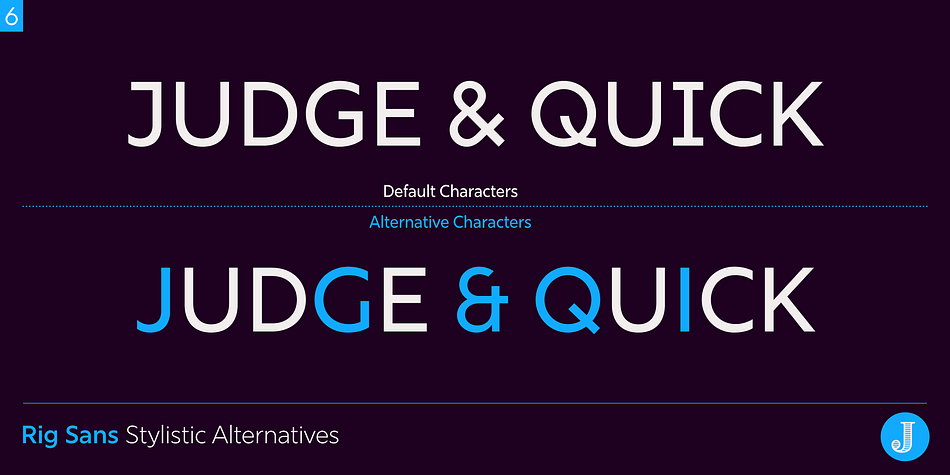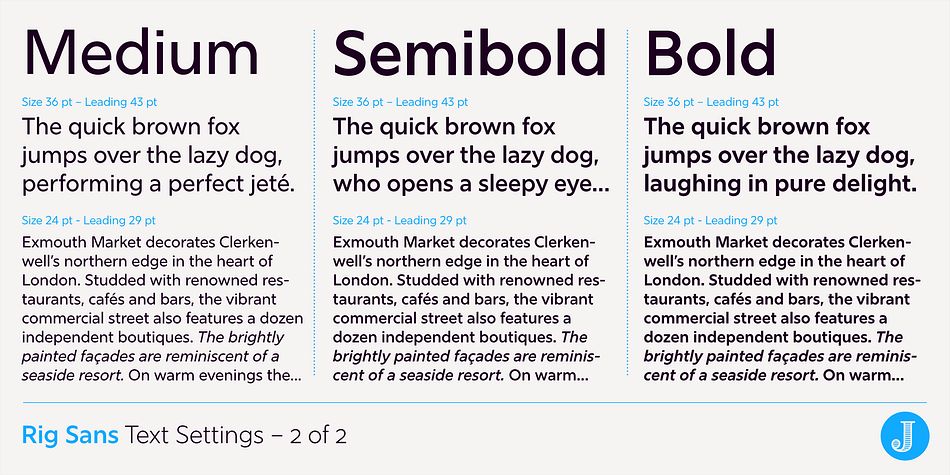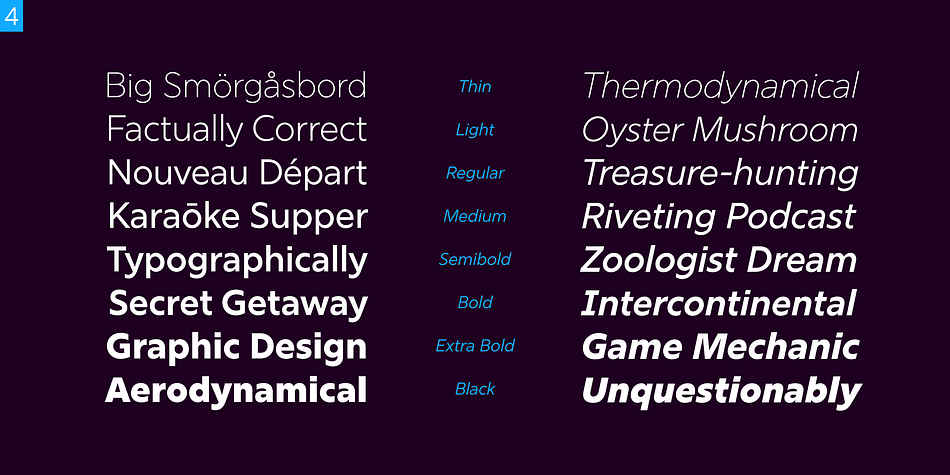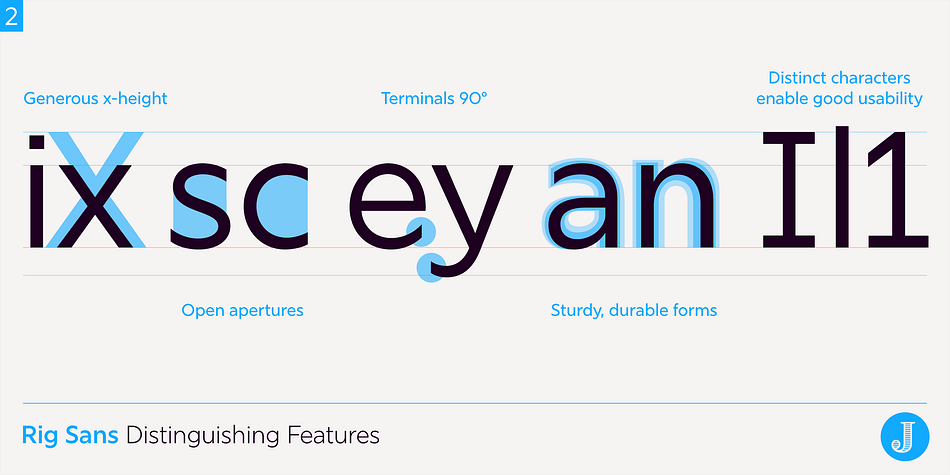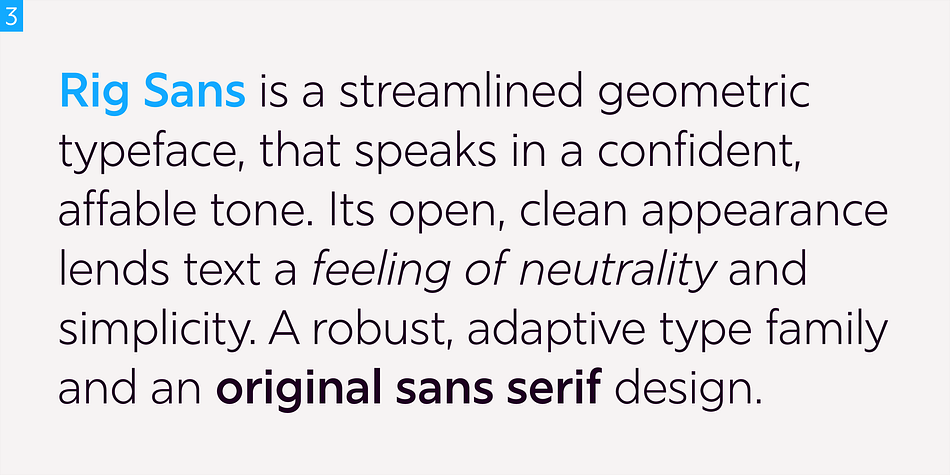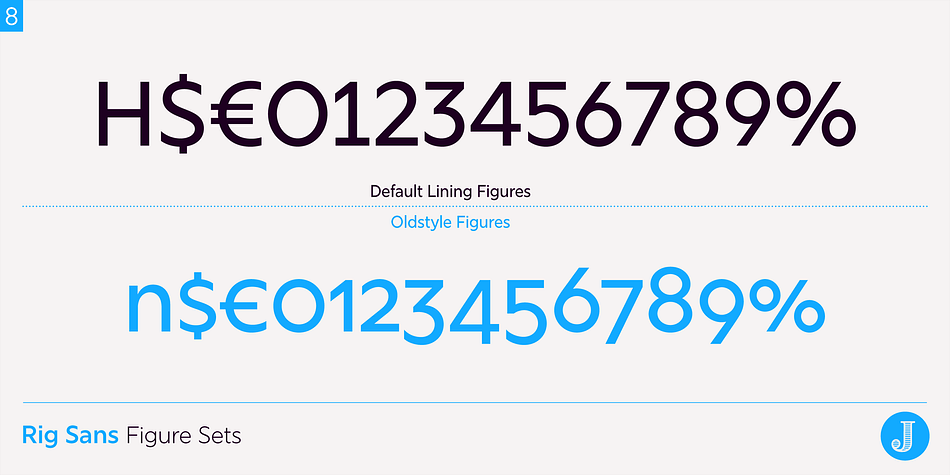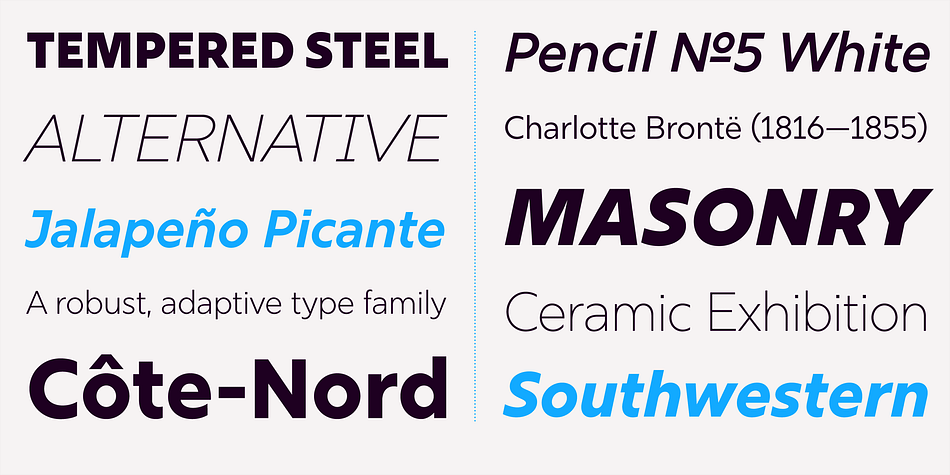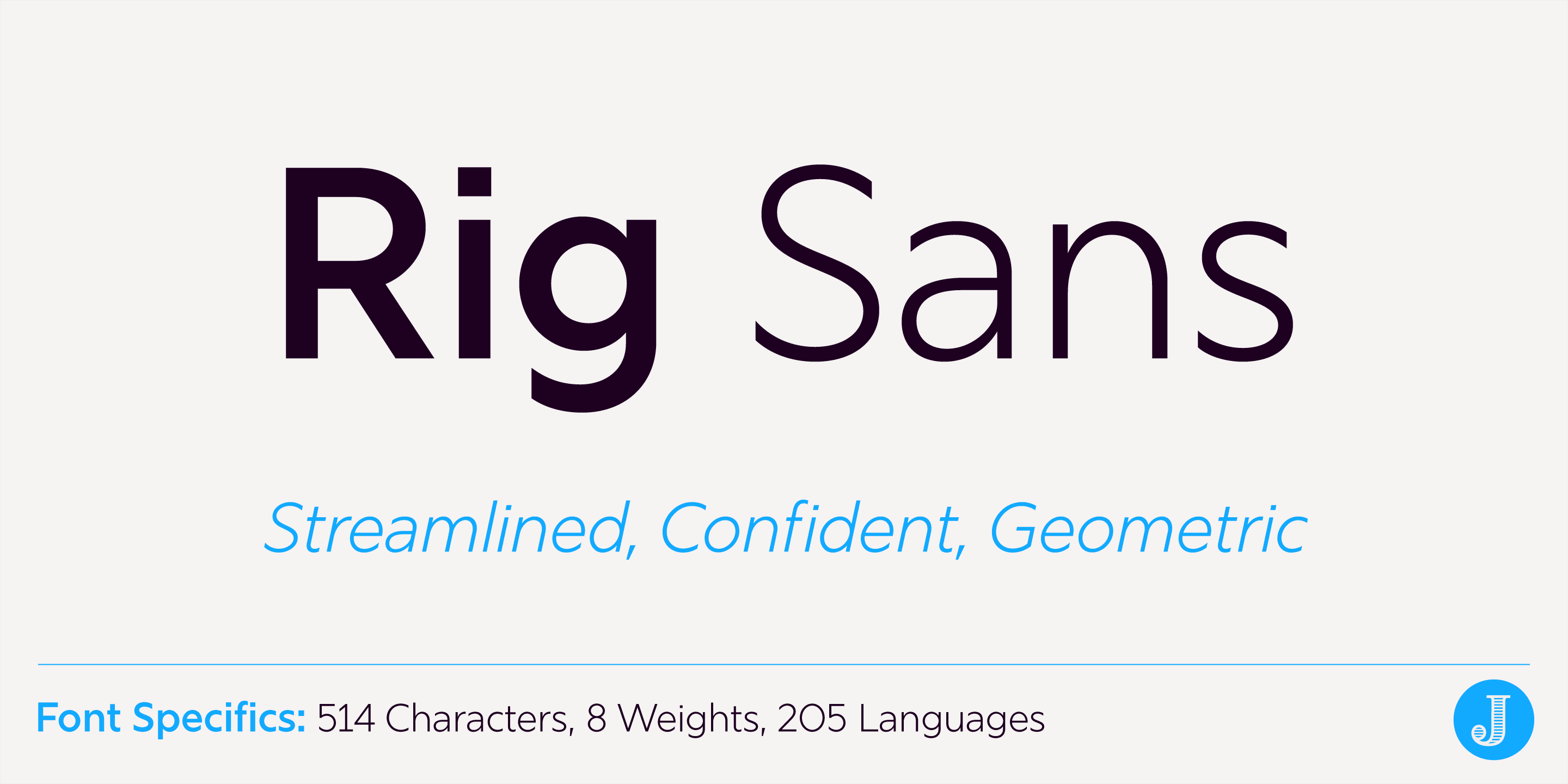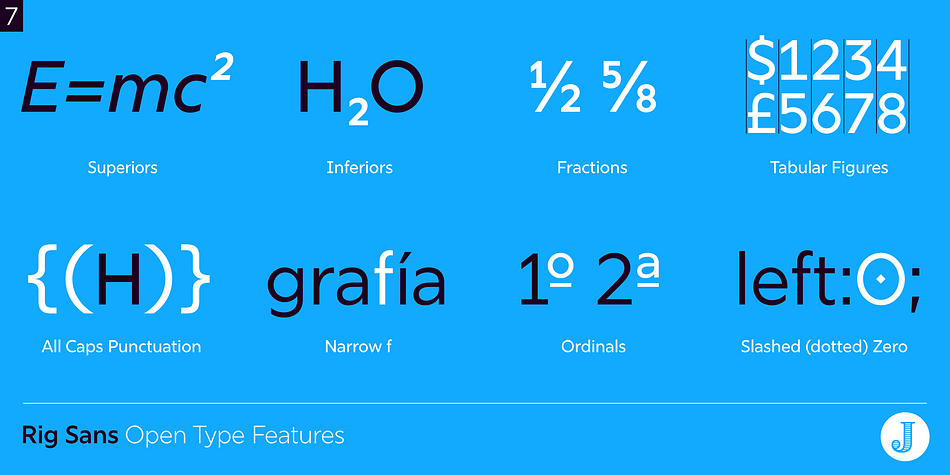
Rig Sans
Designed by Jamie Clarke, Rig Sans is a sans serif font family. This typeface has sixteen styles and was published by Jamie Clarke Type.
Rig Sans is a streamlined geometric typeface, that communicates in a confident, affable tone. Its open, clear structure lends text a neutral, transparent quality.
Distinct features enable Rig Sans to thrive, both in print and on screen:
• Minimalist Design
• Terminals clipped at 90º
• Generous x-height
• Wide apertures
• Distinct I,l,1 (uppercase i, lowercase L, Number 1)
Rig Sans’ sturdy characters produce text settings with excellent clarity and readability. Their shape has been adapted from robust letterforms originally designed to withstand 3D distortions. This unique approach has resulted in an original sans serif rendition and an adaptive, durable type family.
Rig Sans is comprised of eight weights and accompanying italics. Each weight contains 514 glyphs.
OpenType features include:
• Alternate characters
• Three figure styles
• All caps punctuation
• Fractions
• Ordinals
• Superscript
• Subscript